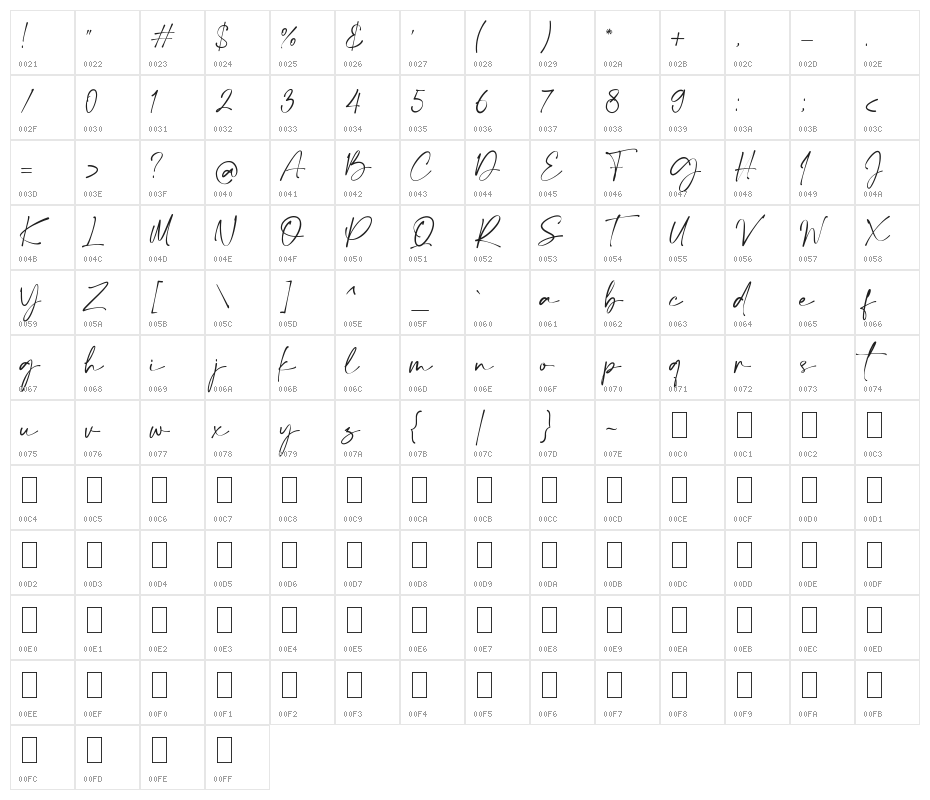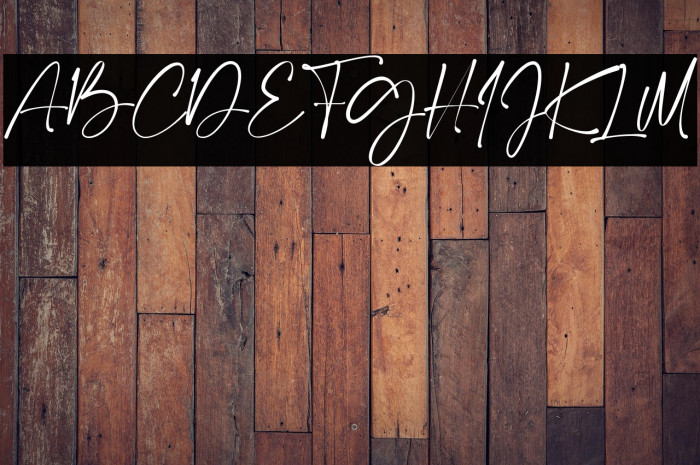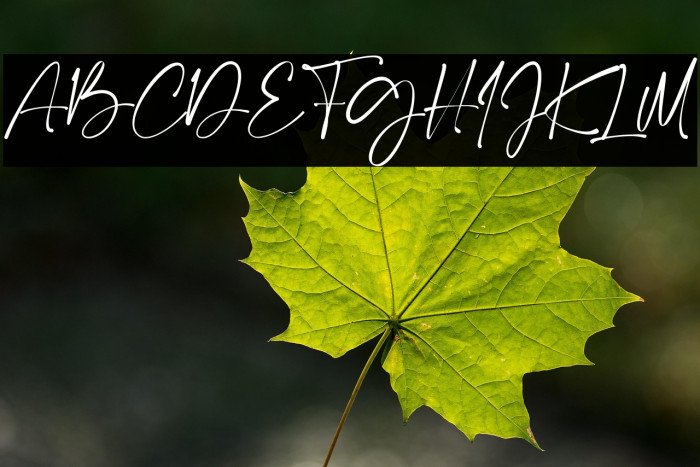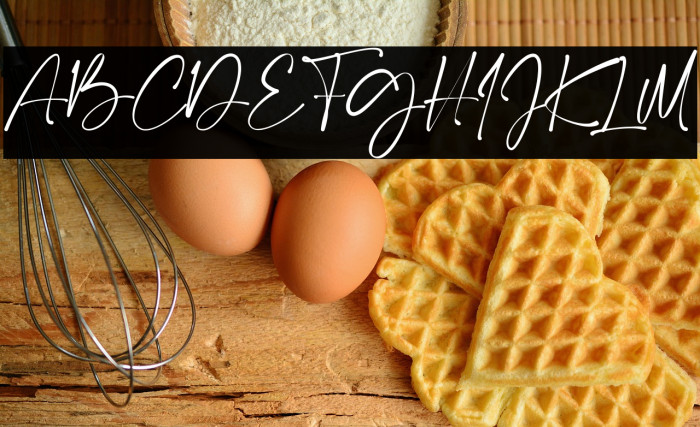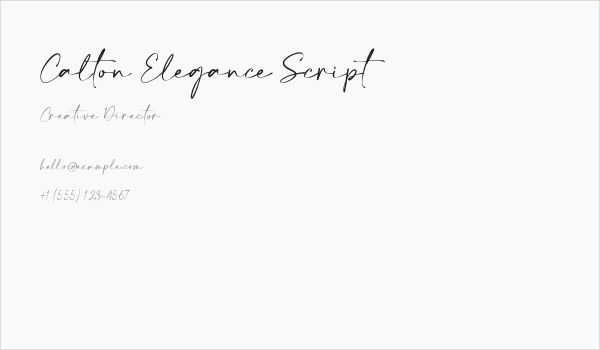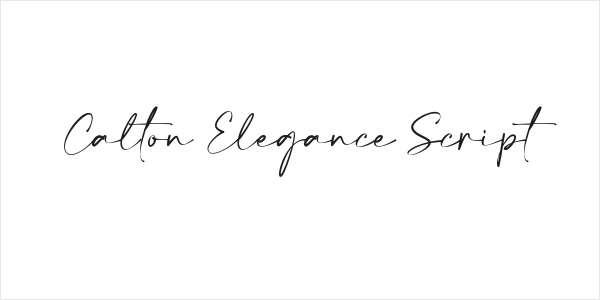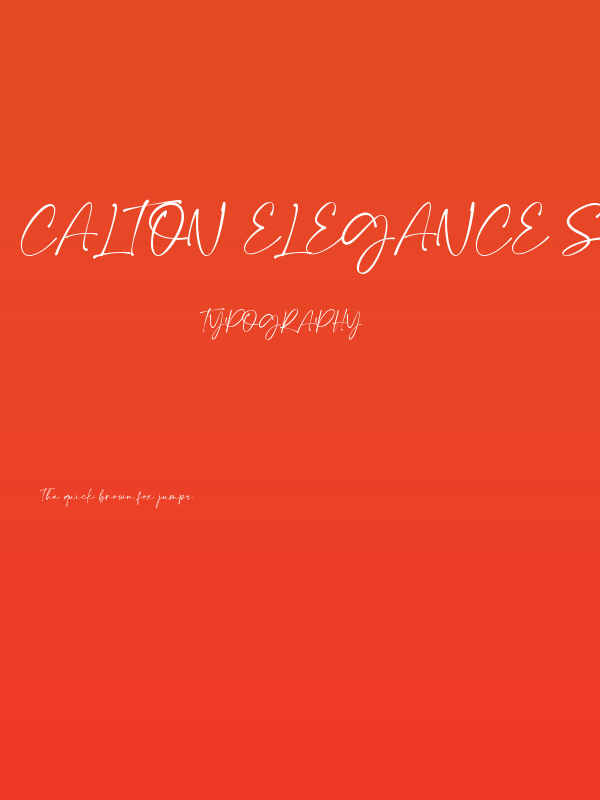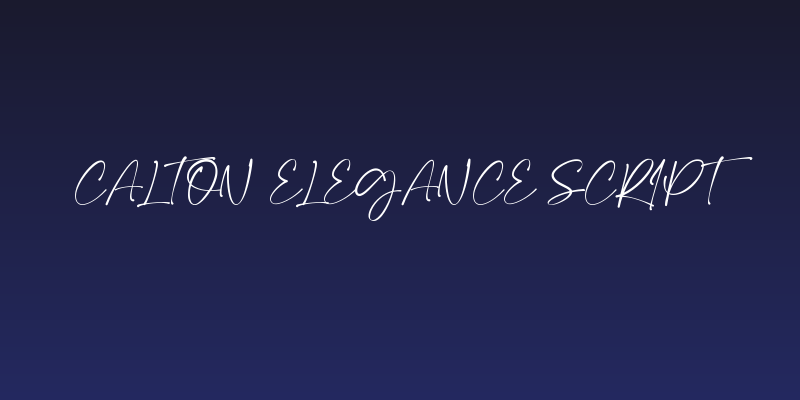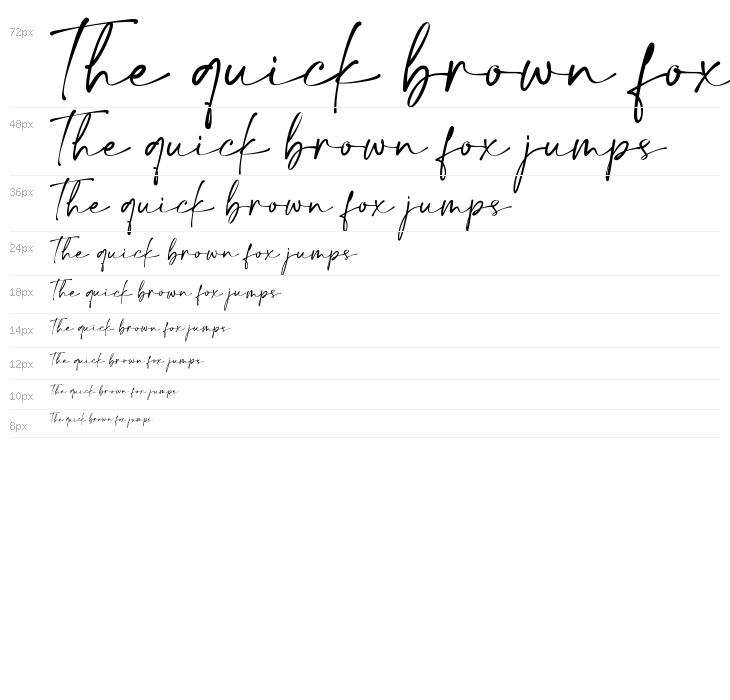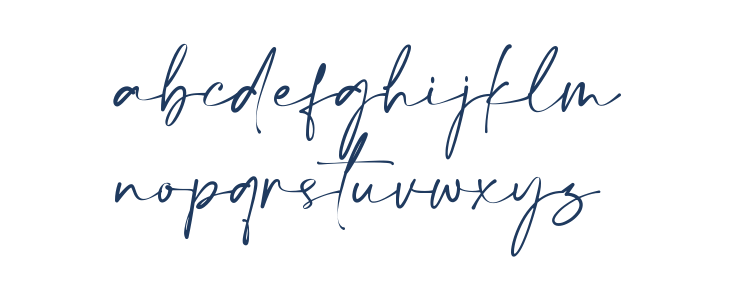
Calton Elegance Script Font
Calton Elegance Script Description
This script font exudes elegance and fluidity, characterized by its smooth, flowing lines and graceful curves. The uppercase letters are bold and slightly slanted, giving a sense of movement and sophistication. The lowercase letters maintain a consistent style with delicate loops and swashes that enhance its handwritten appeal. Numbers are crafted with the same attention to detail, ensuring readability while maintaining the font's artistic flair. Special characters are thoughtfully designed, complementing the overall aesthetic. This font is perfect for projects that require a touch of class and personal expression.
| Use Case | Logos, Invitations, Stationery |
| Proposed Projects | Wedding invitations, luxury branding, personal stationery, elegant logos, and artistic quotes. |